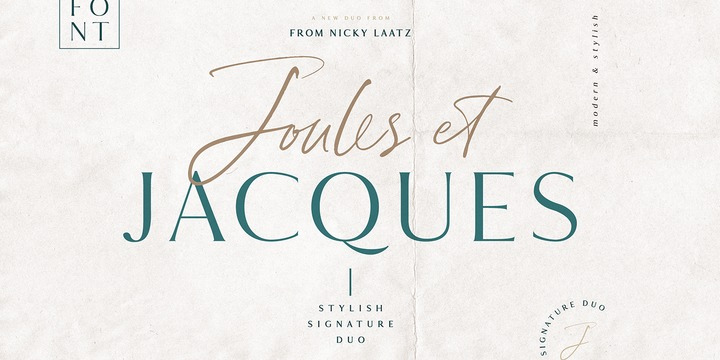
Joules et Jacques Font
Joules et Jacques Font is perfect for French bistro menus, Parisian café signage, French fashion brand identity, haute cuisine restaurant materials, French wine label design, luxury perfume packaging, artisan French bakery branding, French cultural events, sophisticated editorial layouts, elegant French wedding invitations, boutique French jewelry marketing, and refined projects that require authentic, French-inspired typography with Parisian sophistication and European elegance.
What makes Joules et Jacques Font so exciting is its authentic French sophistication and Parisian elegance that captures the refined cultural heritage and artistic sensibility of French design traditions. This typeface features graceful letterforms with distinctly French characteristics and elegant proportions that evoke the timeless charm of Parisian boulevards, French artisanal craftsmanship, and the sophisticated joie de vivre that defines French culture. The font's French character and European appeal make it perfect for brands and projects that want to communicate refinement, cultural sophistication, and the kind of effortless elegance that embodies the French art of living.
Joules et Jacques Font typically comes in multiple weights and styles including Light, Regular, Medium, and Bold variations, often with corresponding Italic styles. Many versions also include French accent marks, European ornaments, and culturally appropriate decorative elements that enhance the font's authentic French functionality and provide designers with comprehensive tools for creating genuinely French-inspired typography compositions.
Embrace French sophistication with the Parisian elegance of Joules et Jacques Font Free Download. This culturally authentic typeface brings together French design heritage with contemporary functionality, making it an essential tool for luxury brands and cultural organizations that need to create memorable, sophisticatedly French communications that resonate with audiences seeking authentic European elegance and refined cultural experiences. The font's French character ensures your projects will convey genuine Parisian sophistication and cultural refinement.
Whether you're designing French cuisine materials, luxury European branding, or culturally sophisticated communications, Joules et Jacques Font delivers exceptional French authenticity and Parisian charm that connects with audiences who appreciate European culture and sophisticated design sensibilities. Its elegant, distinctly French appearance works beautifully with luxury color palettes and refined imagery, creating designs that feel both authentically French and contemporarily sophisticated.
The elegantly crafted letterforms of Joules et Jacques Font demonstrate deep appreciation for French typographic traditions and European design principles. Each character has been designed to honor the refined aesthetics of French culture while maintaining excellent readability for contemporary applications, making it particularly valuable for luxury communications where typography must convey both cultural authenticity and sophisticated European appeal.